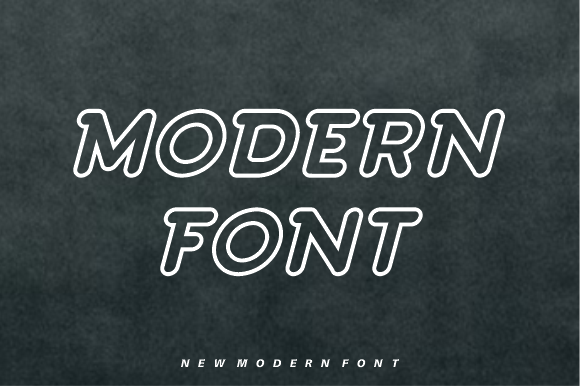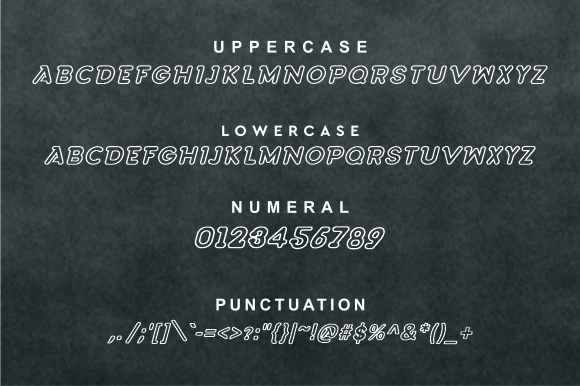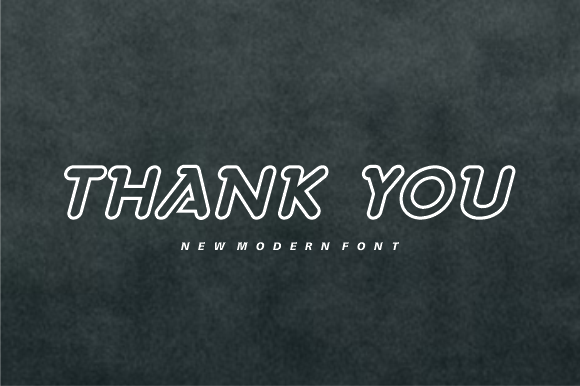
The Perfect Typography for Fashion-Forward Designs
You’ve finally landed the most exciting project of your career – a fashion brand that’s about to take the world by storm. As you sit down to brainstorm, your mind is filled with ideas, and your fingers itch to bring them to life. But, what if you’re missing that one crucial element that sets your design apart from the rest? That’s where the Agufim Line Font comes in – a stylish and sophisticated font that’s perfect for fashion branding or editorial design.
This beautifully crafted font is defined by smooth curves, making it an instant hit with designers who crave a touch of elegance in their work. With the Agufim Line Font, you can add a level of sophistication to your projects that’s hard to find elsewhere. Whether you’re designing a fashion magazine or creating a brand identity, this font is sure to elevate your designs to the next level.
Agufim Line Font Key Features
- Unique Characteristics: Agufim Line Font features a unique, hand-drawn style with distinctive line work, giving it a personalized and artistic feel.
Agufim Line Font Review
Overall, the Agufim Line Font is a decent, modern sans-serif font that can work well in various design applications. ✨ Here are some of its strengths:
- The font’s clean and minimalist design makes it perfect for corporate and business materials, as well as modern digital products.
- Its high x-height and moderate stroke contrast provide excellent legibility, making it suitable for body text and paragraphs.
- The font’s versatility allows it to pair well with other sans-serif fonts, as well as serif fonts, depending on the design’s requirements.
- The font may lack character in certain situations, such as when used for headings or titles, where a more dramatic or elegant font might be more suitable.
- The font’s design may not be unique or distinctive enough to stand out in a crowded market, potentially making it less memorable for users.
Overall, the Agufim Line Font is a solid, functional choice for designers looking for a clean and modern sans-serif font. While it may not excel in every situation, it can still be a reliable choice for many design projects.
Tips for Getting the Most Out of Agufim Line Font
Agufim Line Font is a versatile font that can be used in a variety of designs, from modern logos to elegant invitations. To get the most out of this font, try combining it with bold colors and clean lines for a modern look, or use it in conjunction with traditional typography for a classic feel.
Agufim Line Font is commonly used in:
- Modern logos and branding
- Elegant invitations and stationery
- Typography-based art and design